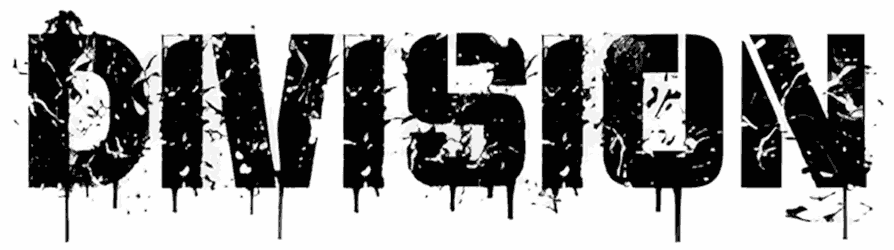
Division Font
For incorporating grunge and messy image in your typography, be inclined to use this destroy font to be more stunning than before. Its dirty and speckled setup surrounded by blood dripping font style will continuously attract the youngster’s attention.
Despite the Division font depriving us of lowercase letters, it would bring satisfactory results in designing many street art posters, urban designs, gangsters’ movie titles, album covers, and more with a retro theme.